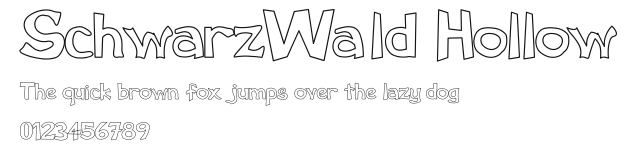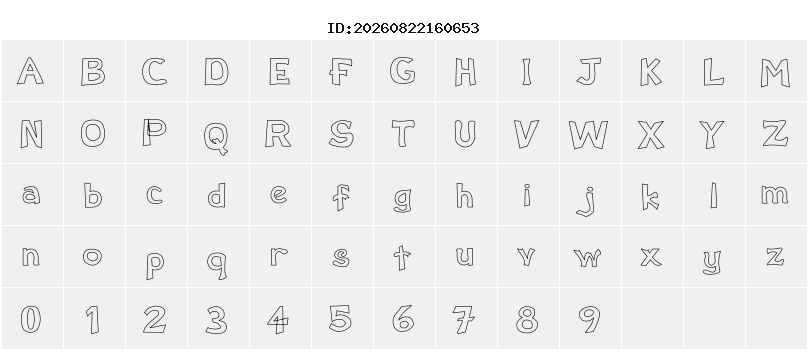
SchwarzWald Hollow Preview
• Font Name: SchwarzWald Hollow
• Full Font Name: SchwarzWald Hollow
• PostScript Name: SchwarzWaldHollow
About SchwarzWald Hollow.ttf
SchwarzWald Hollow.ttf is a modern, elegant sans-serif font designed for ultimate readability and visual harmony. Perfect for branding, headlines, web design, and print materials.